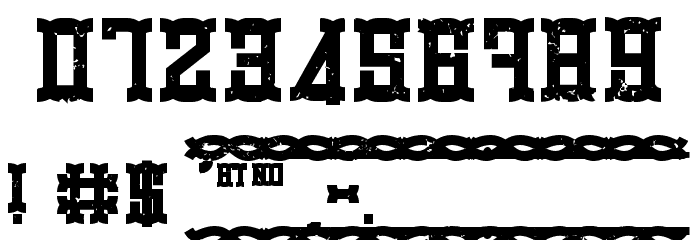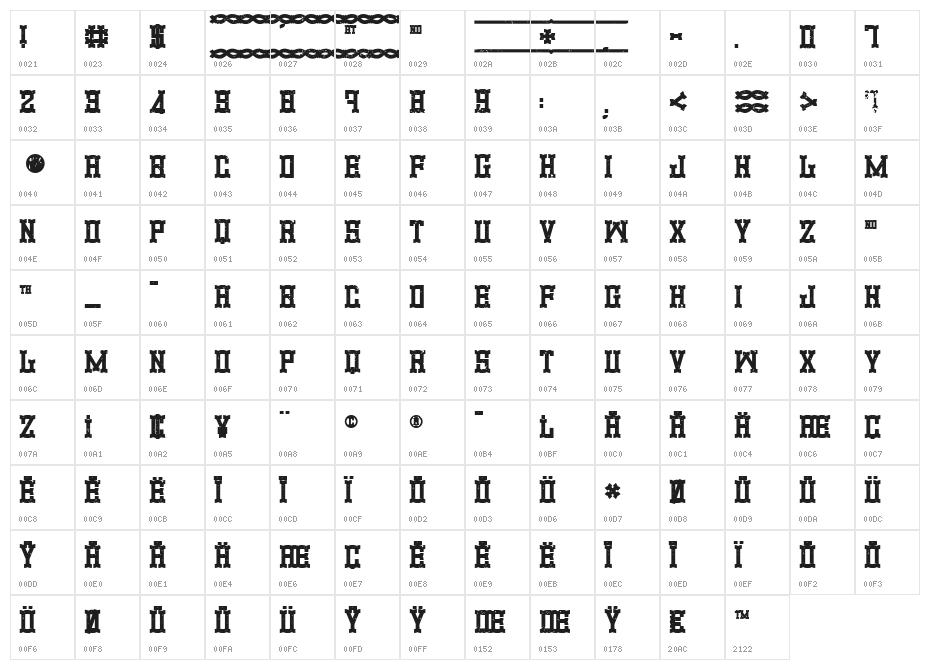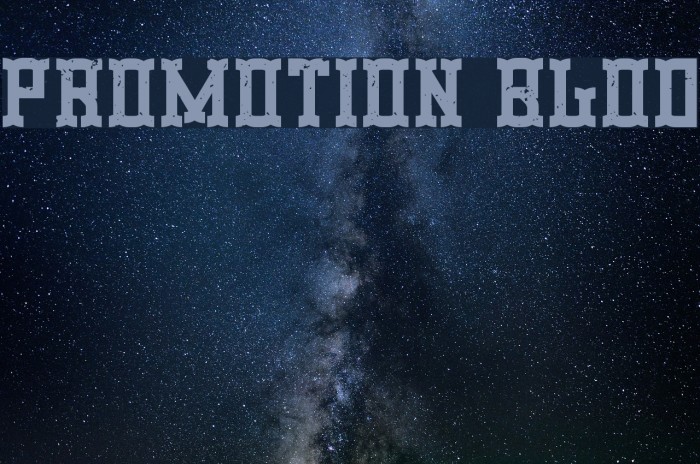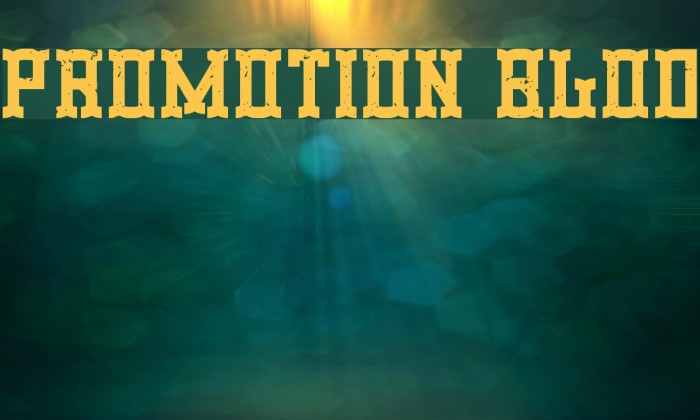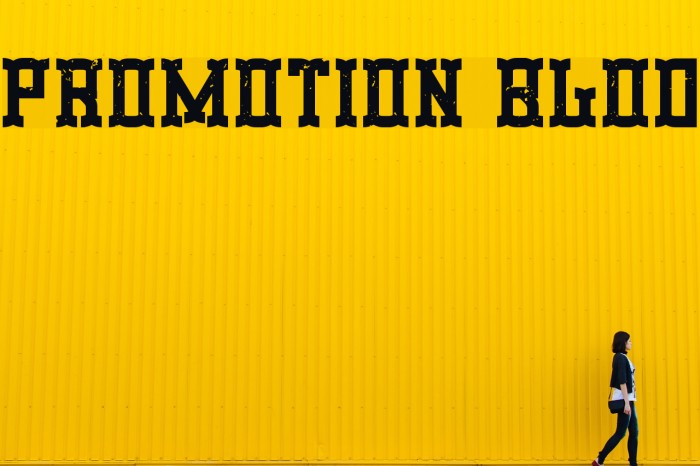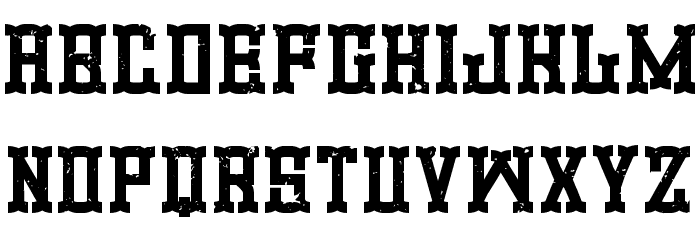
Promotion Blod Font
Promotion Blod Description
This font features a bold, distressed style with a vintage, western flair. The uppercase letters are robust and blocky, with a textured appearance that suggests wear and age. The numbers and special characters maintain this rugged aesthetic, making the font ideal for projects that require a rustic or antique look. The design is reminiscent of old posters or signage, with a strong presence that commands attention. Its unique character is enhanced by the irregular edges and rough texture, giving it a handcrafted feel.